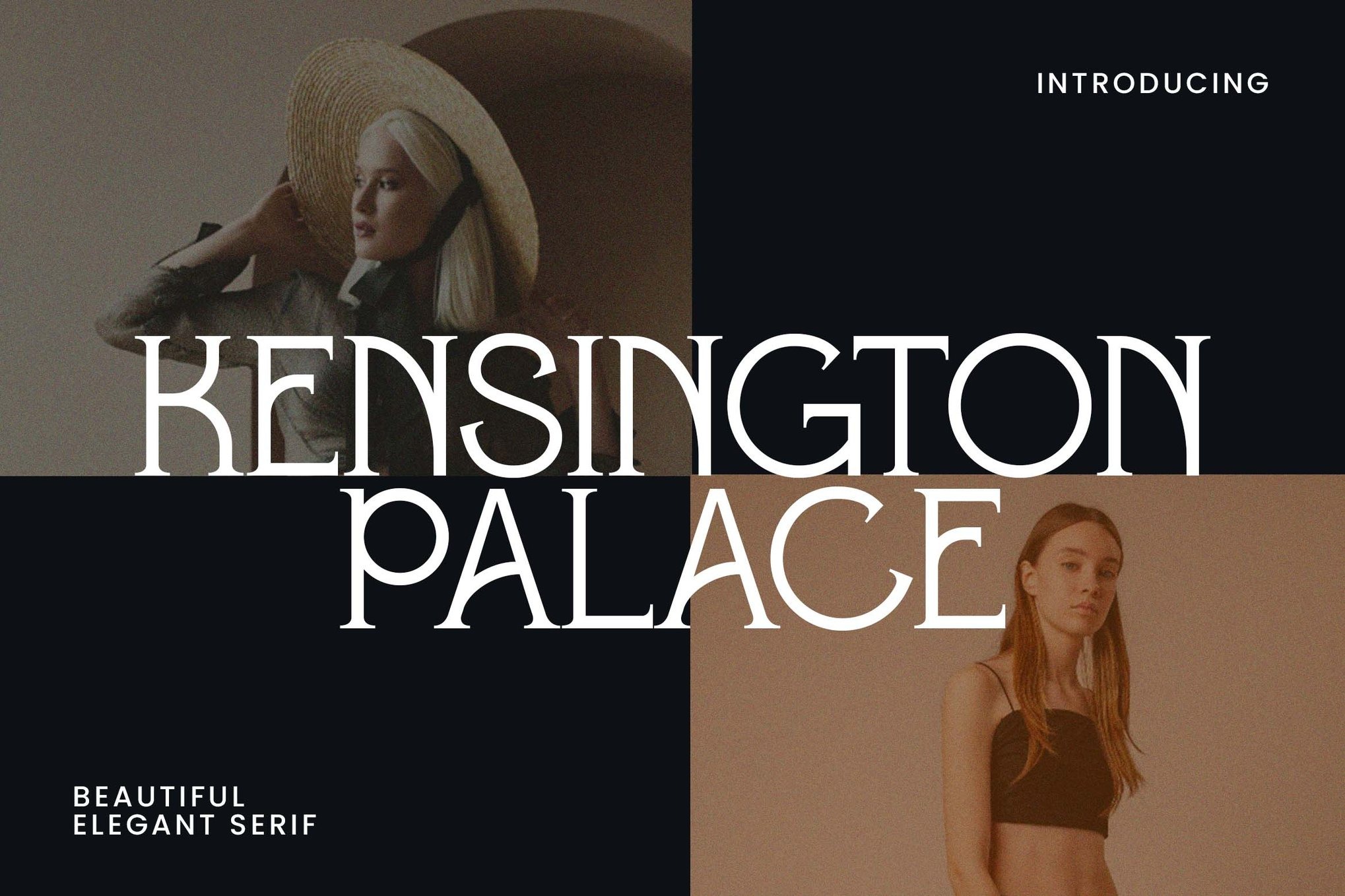
Kensington Palace – Modern Serif Font
Kensington Palace – Modern Serif Font is a flexible and reliable font created to fit multiple design needs, from branding and packaging to social media and editorial layouts. Kensington Palace Elegant Serif Font that feels beautiful classy, elegant, and modern. This font is perfectly suited for a wide variety of projects, such as signature, stationery, logo, wedding, typography quotes, magazine or book covers, website headers, clothing, branding, packaging design, and more. Also, fashion-related branding or editorial design displays both masculine and feminine qualities.